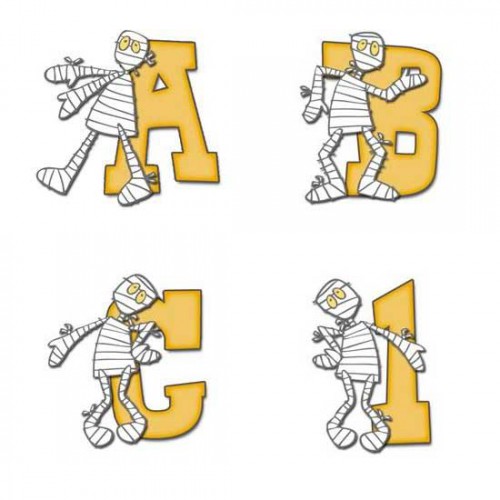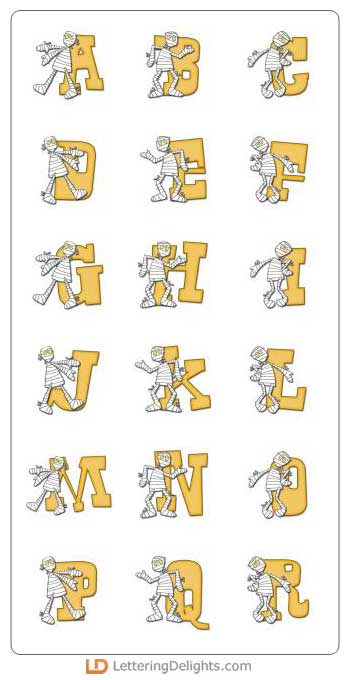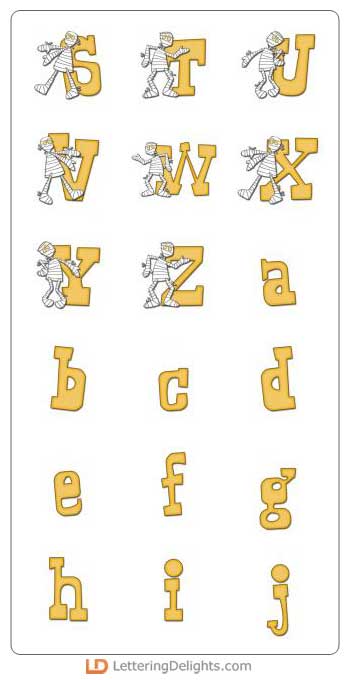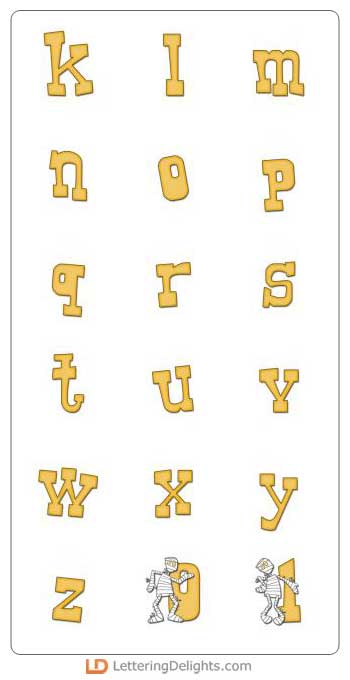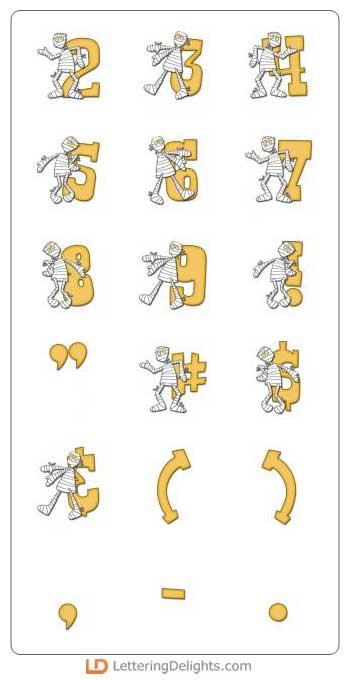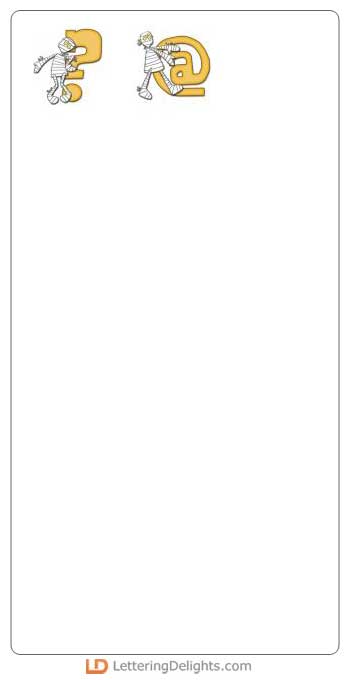
Happy little mummies sleep walk around the letters of this alphabet. Scare up some delightful scrapbook pages for your little trick or treaters. This has a corresponding journaling set.